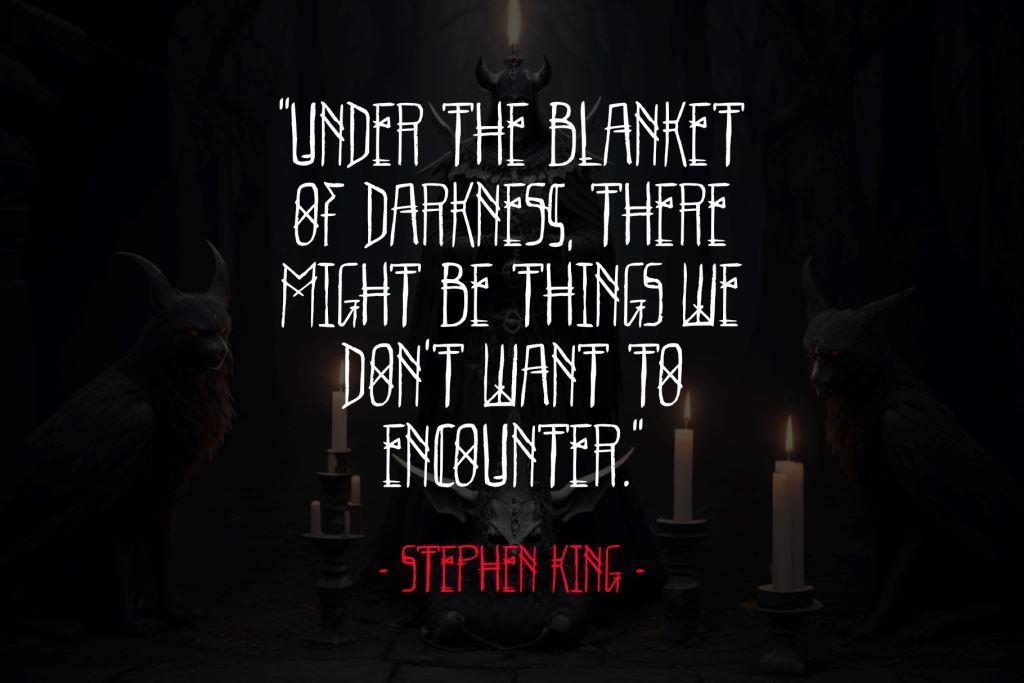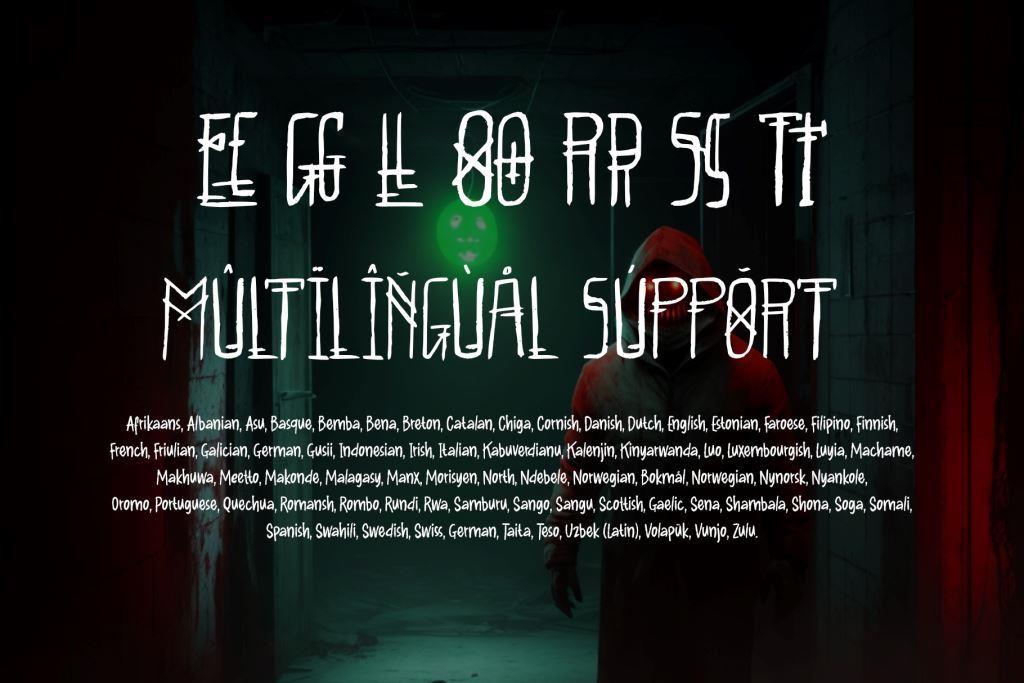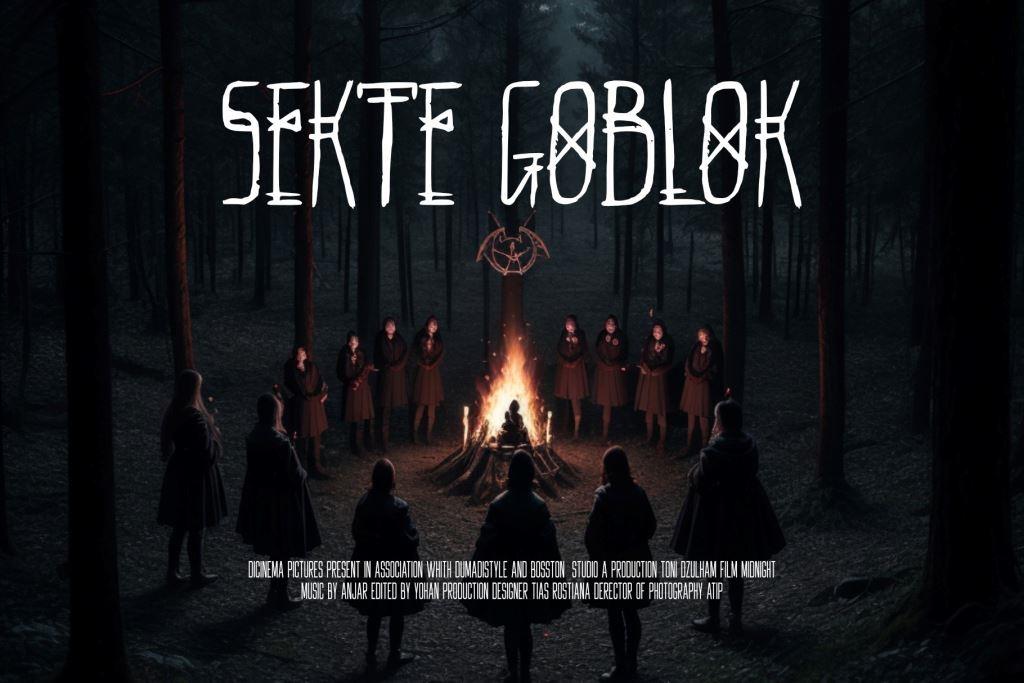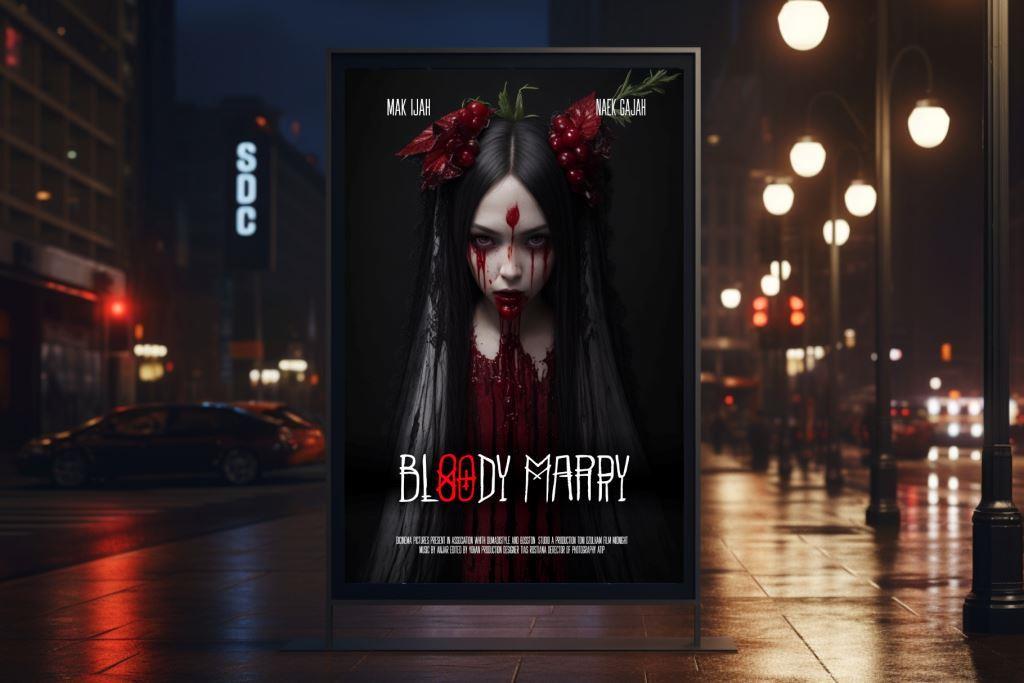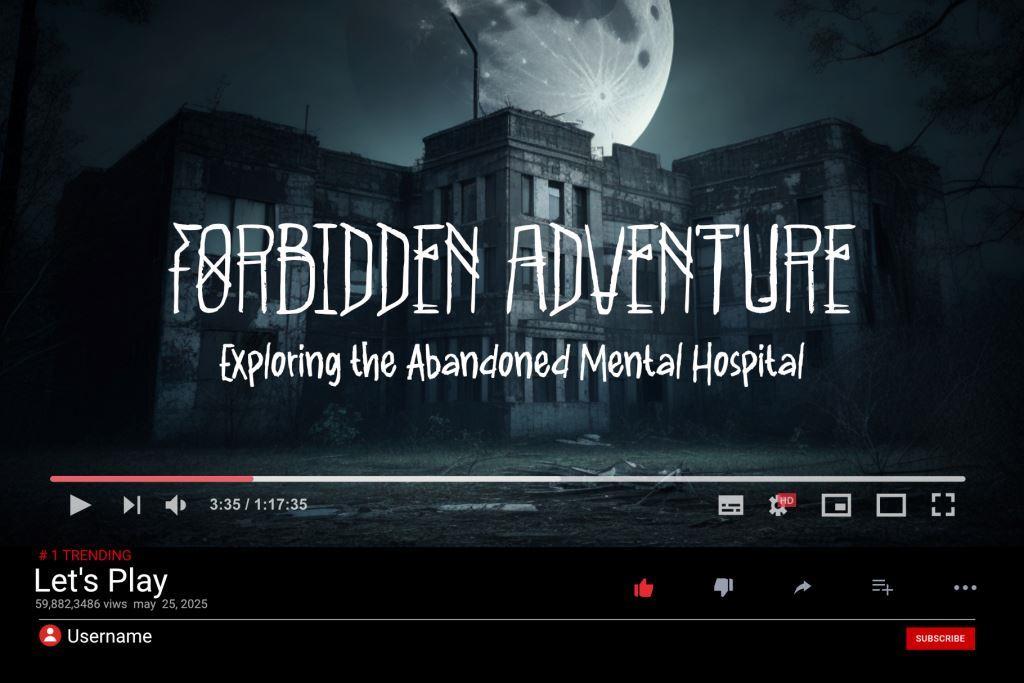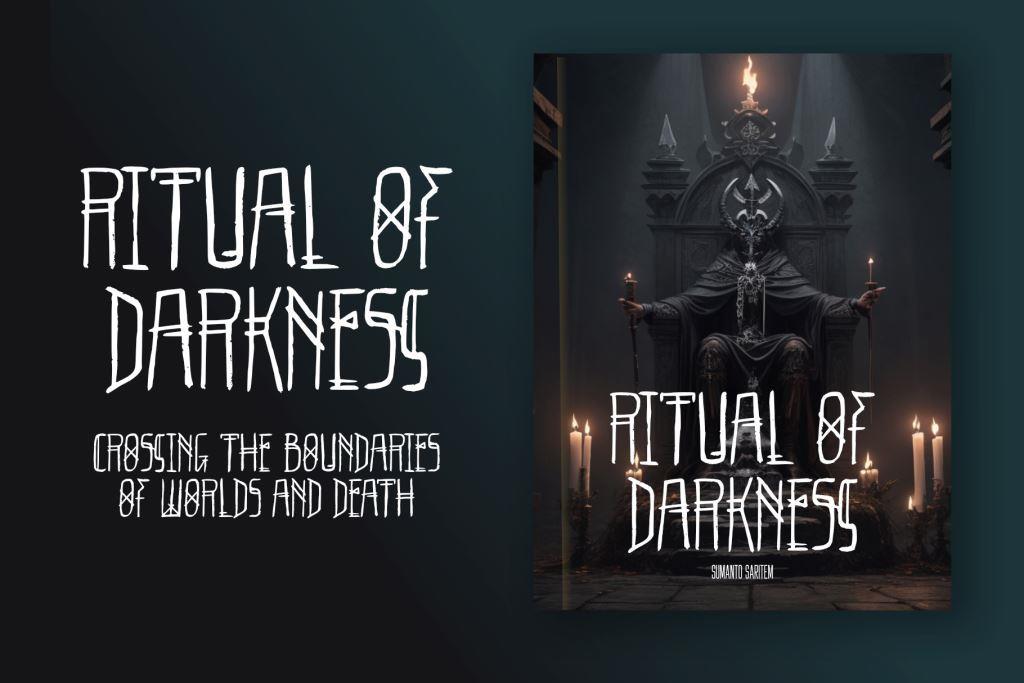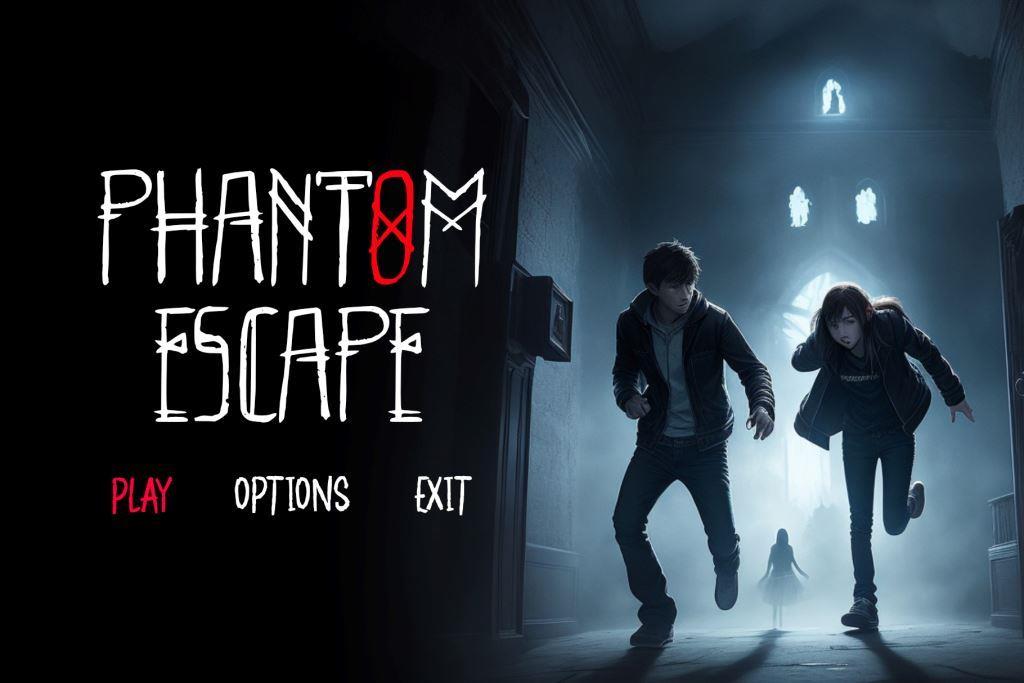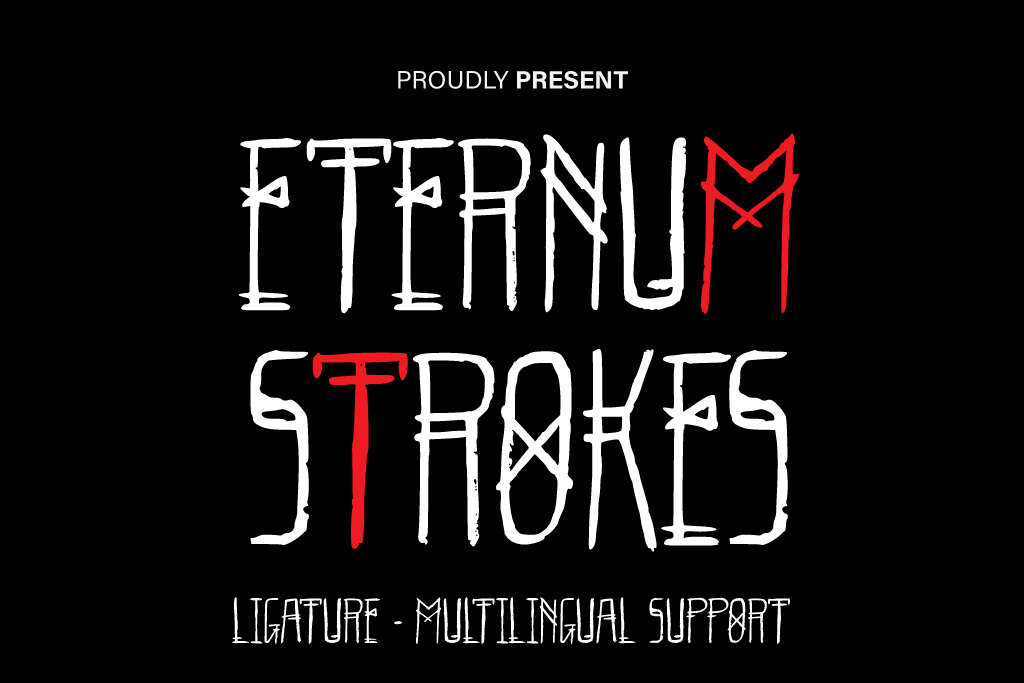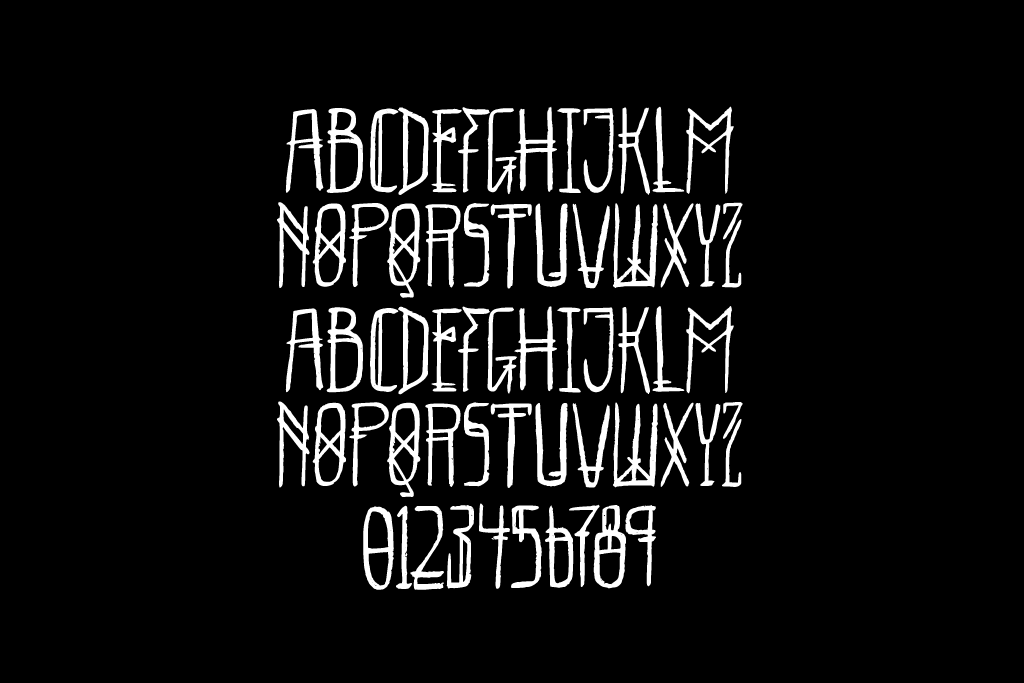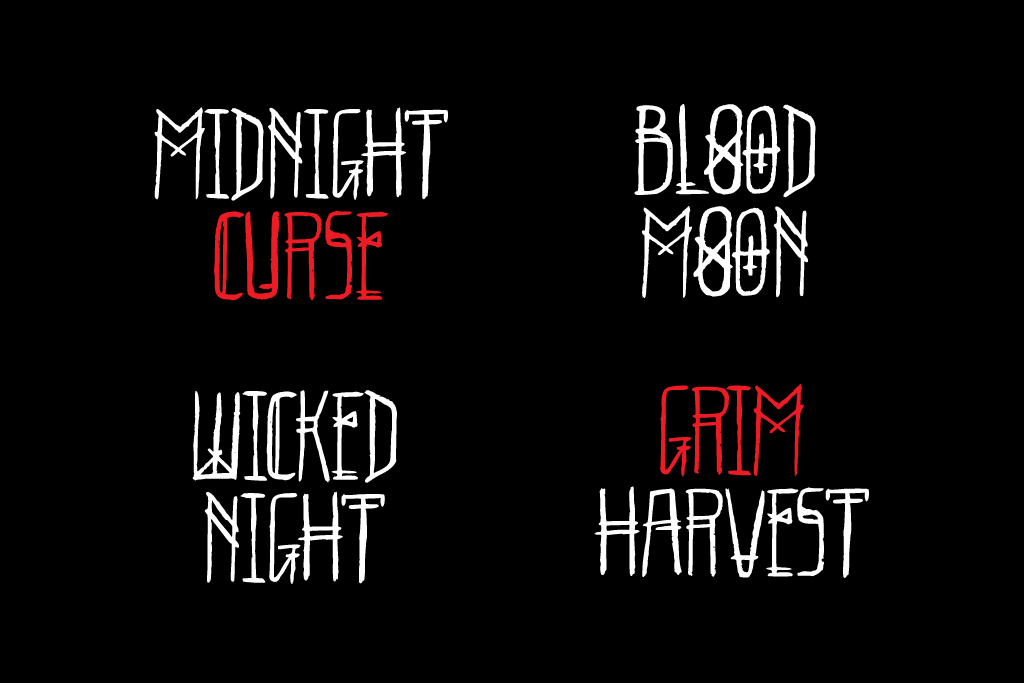
- Eternum Strokes
The “Eternum Strokes” font is a typeface that embodies elements of horror and immortality, as if carved into ancient inscriptions full of mystery and darkness. With characteristics reminiscent of ancient inscription forms, this font creates an eerie and chilling atmosphere.
Eternum Strokes has the following characteristics:
Ancient Inscription Style: Its letters bear a resemblance to the script of ancient inscriptions, with bold, decisive lines that convey a sense of strength and eternity.
Elegant Design: Despite its eerie nature, the font also incorporates elegant design elements, making it a perfect choice for horror projects that prioritize aesthetics.
Classic Appearance: Eternum Strokes exhibits a classic appearance that blends horror elements with classic features, creating an enticing and challenging feel.
Powerful Presence: The strong lines in this font give off an impression of power and firmness, as if the writing will last forever.
Thematic Fit: This font is well-suited for use in projects related to horror, mystery stories, or themes that emphasize darkness and suspense.